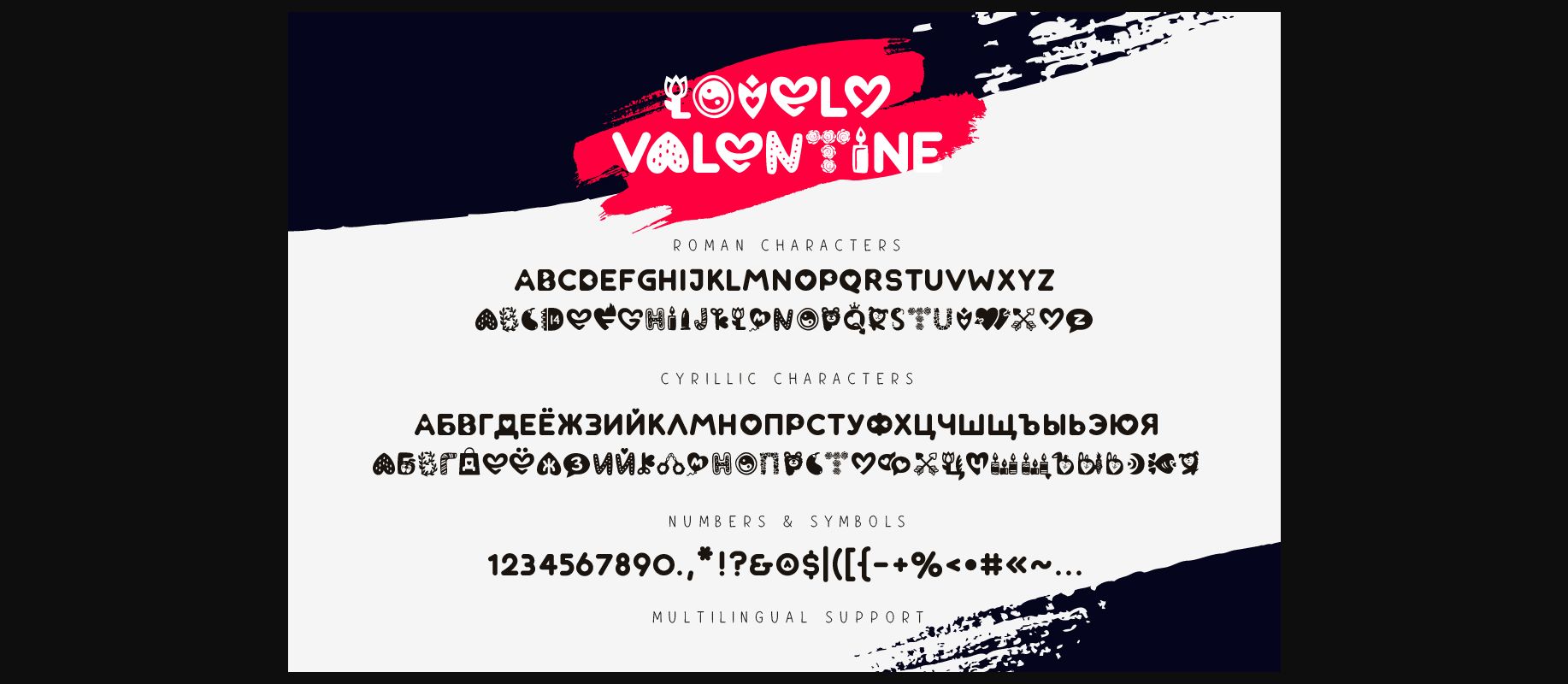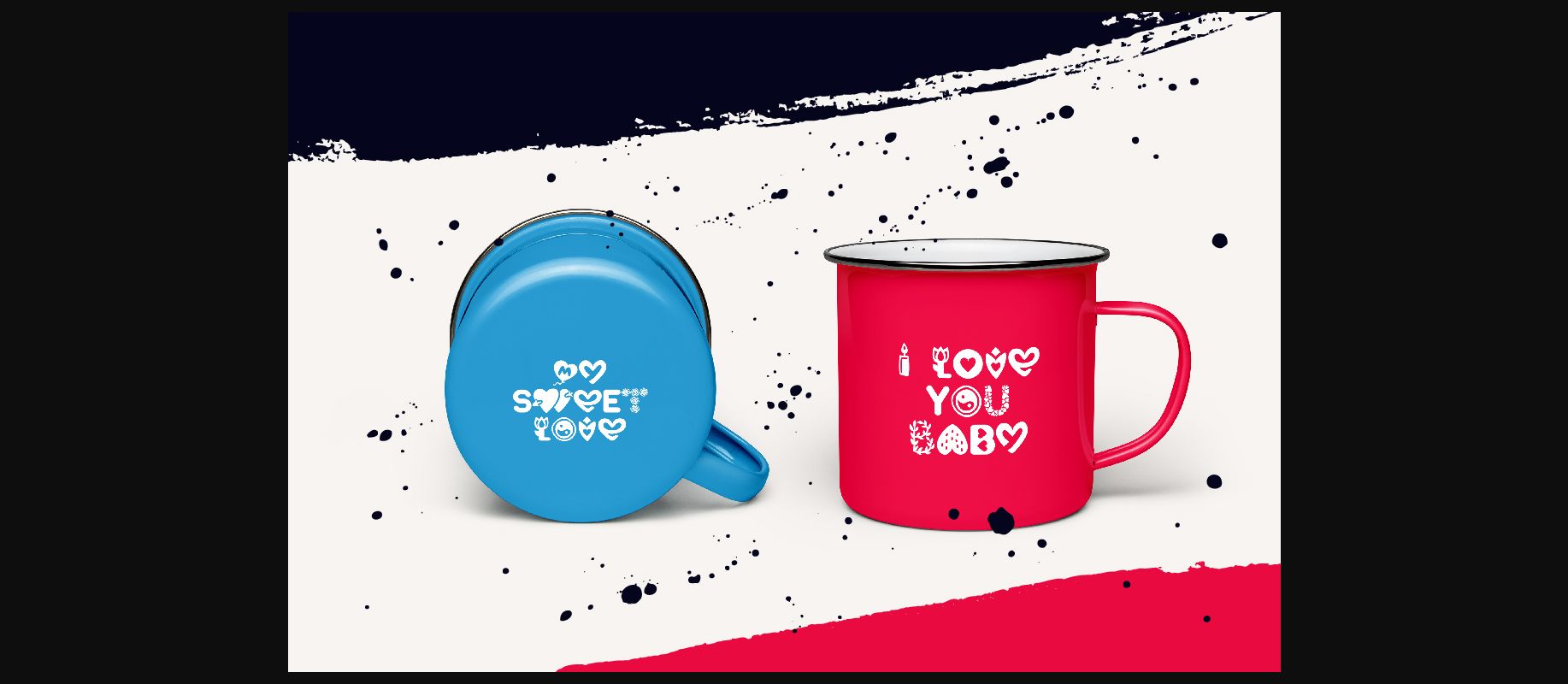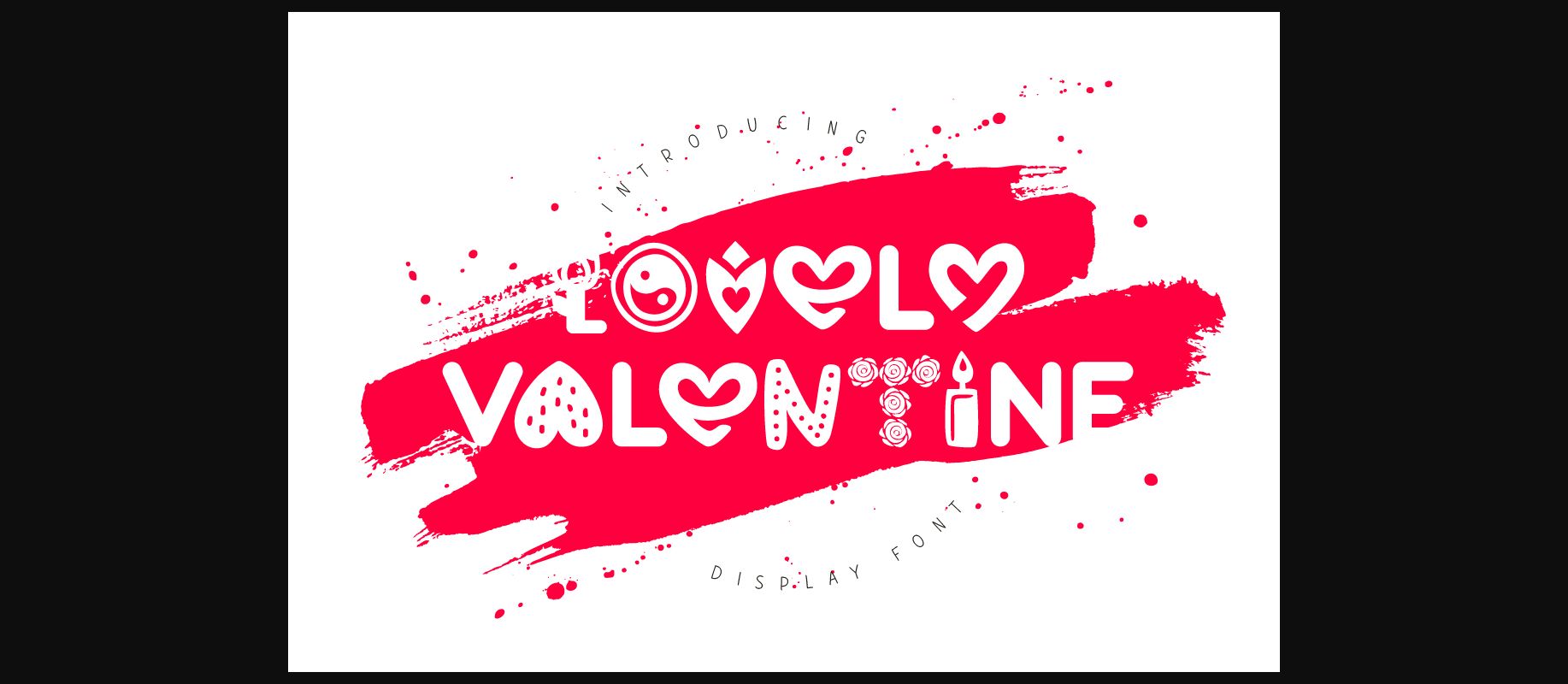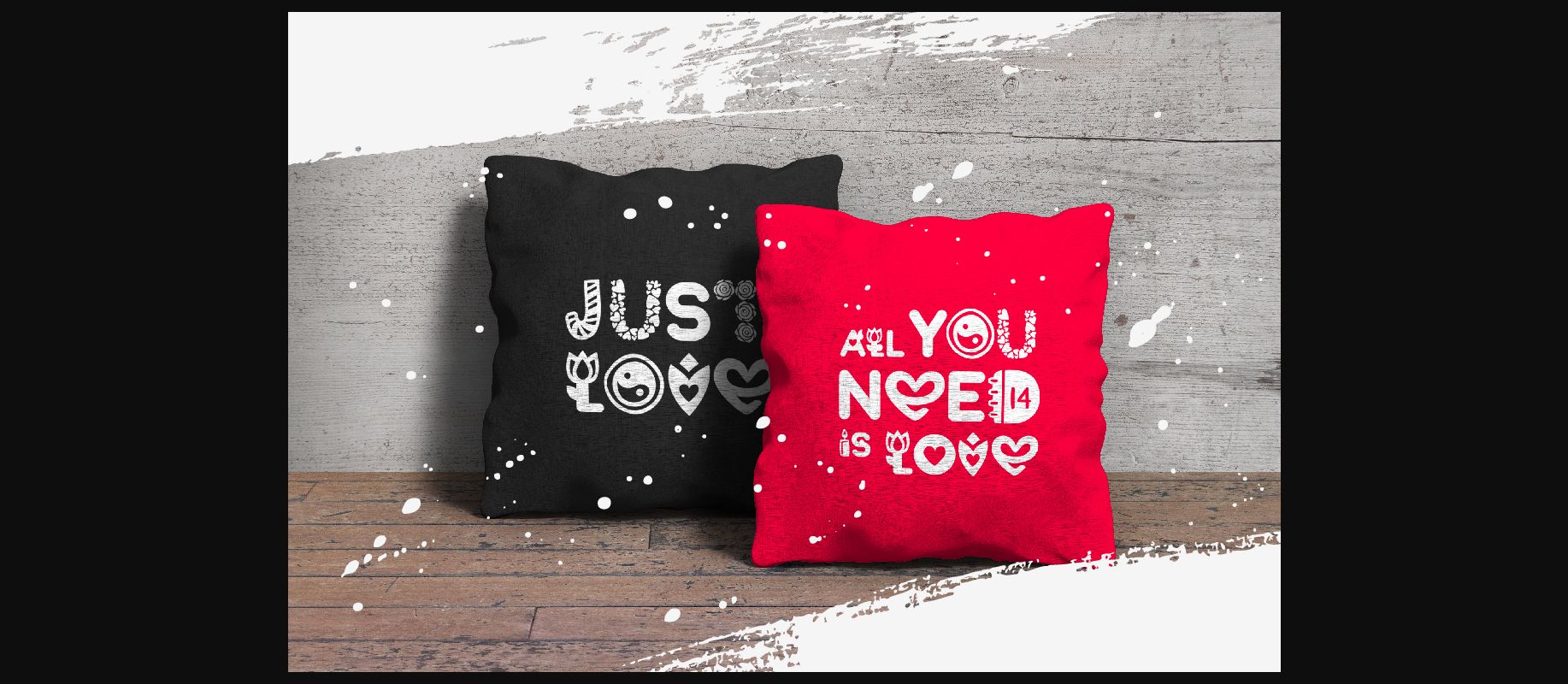
Lovely Valentine Font
About Lovely Valentine Font
The Lovely Valentine is a decorative font created specifically for the design of products for St. Valentine’s Day. It induces beautiful decorated letters which will add a loving feeling to your designs.